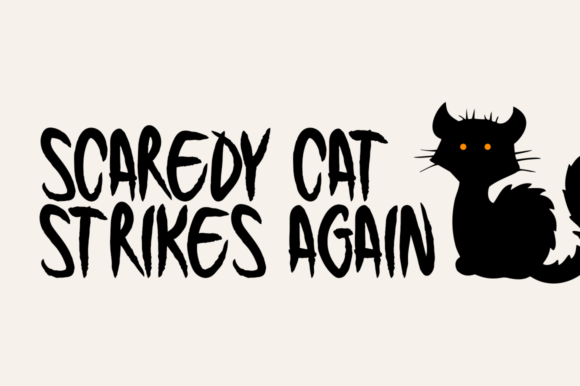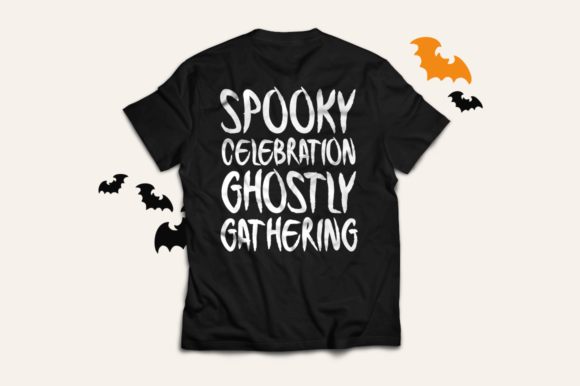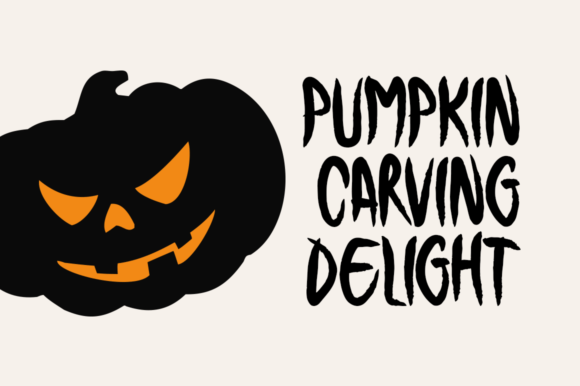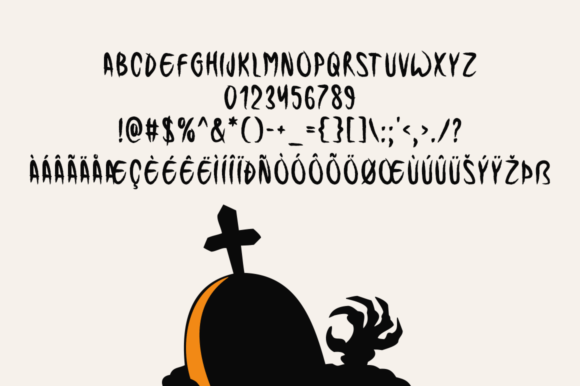
Hallowtide Font: Elevate Your Artistic Creations with this Unique Display Typeface
In the world of design, a font can make all the difference in setting your artistic endeavors apart from the rest. If you’re a designer, crafter, or artist looking for a unique and eye-catching display typeface, look no further than Hallowtide Font. This thoughtfully designed font is perfect for enhancing a range of creative projects, from printed materials to digital designs.
What is Hallowtide Font?
Hallowtide Font is a distinctive display typeface that boasts a one-of-a-kind aesthetic. Its unique design elements make it an excellent choice for adding a touch of personality to your artistic creations. Whether you’re working on a logo, t-shirt design, flyer, picture frame, album cover, poster, or image slider, Hallowtide Font is sure to make your project stand out.
Key Features of Hallowtide Font
So, what sets Hallowtide Font apart from other typefaces? Here are some of its key features:
• Unique Design: Hallowtide Font features a distinctive design that is both eye-catching and memorable.
• Versatility: This font is perfect for a range of artistic endeavors, from printed materials to digital designs.
• High-Quality: Hallowtide Font is designed to deliver high-quality results, ensuring that your projects look professional and polished.
Uses for Hallowtide Font
Hallowtide Font is an incredibly versatile typeface that can be used in a variety of creative projects. Here are some ideas to get you started:
• Printed Materials: Use Hallowtide Font to add a touch of personality to your business cards, brochures, and other printed materials.
• Logos: Create a memorable logo for your brand or business with Hallowtide Font.
• T-Shirt Designs: Design eye-catching t-shirts with Hallowtide Font that’s sure to turn heads.
• Flyers: Create flyers that stand out from the crowd with Hallowtide Font.
• Picture Frames: Add a touch of elegance to your picture frames with Hallowtide Font.
• Album Covers: Design album covers that pop with Hallowtide Font.
• Posters: Create posters that grab attention with Hallowtide Font.
• Image Sliders: Use Hallowtide Font to add a touch of sophistication to your image sliders.
Why Choose Hallowtide Font?
With so many typefaces to choose from, why should you choose Hallowtide Font? Here are just a few reasons:
• Unique Aesthetic: Hallowtide Font boasts a unique aesthetic that’s sure to set your projects apart.
• High-Quality Results: Hallowtide Font delivers high-quality results, ensuring that your projects look professional and polished.
Tips for Using Hallowtide Font
To get the most out of Hallowtide Font, here are a few tips:
• Experiment with Different Sizes: Try out different sizes to see how Hallowtide Font looks in various contexts.
• Pair with Other Fonts: Experiment with pairing Hallowtide Font with other fonts to create a unique look.
• Use in Combination with Images: Use Hallowtide Font in combination with images to create visually striking designs.
Font Name Hallowtide Font
Author Seemly Fonts
If you’re looking for a unique and eye-catching display typeface to elevate your artistic creations, look no further than Hallowtide Font. With its distinctive design, versatility, and high-quality results, this font is perfect for a range of creative projects. Whether you’re a designer, crafter, or artist, Hallowtide Font is sure to become a go-to in your design arsenal.